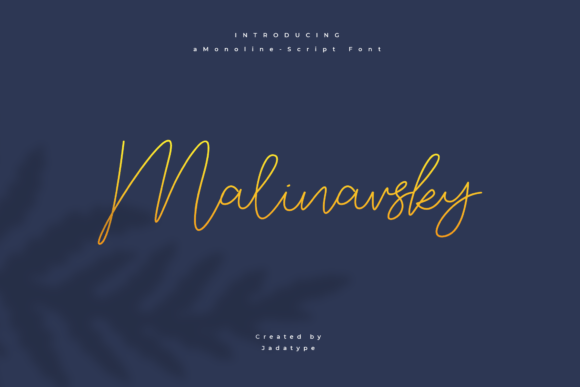
Immerse yourself in the world of Malinavsky Font, a captivating script font that will add an elegant touch to your creative projects. Its monoline lines dance across the page, evoking a sense of smoothness and simplicity, yet exuding an aura of sophistication.
With Malinavsky Font, your wedding invitations will radiate a timeless charm, leaving a lasting impression on your guests. Its delicate strokes will effortlessly elevate your diaries, transforming them into cherished keepsakes that tell your story with grace. Let your creativity flourish as you incorporate Malinavsky Font into your craft projects, adding a touch of uniqueness that sets your creations apart.
This versatile font is not limited to traditional applications. Unleash its potential for invitation cards and various other projects, allowing your words to shine with a captivating allure. Malinavsky Font supports standard English, multilingual, and ligature letters, ensuring seamless integration into your projects.
Embrace the artistry of Malinavsky Font and watch your creative visions come to life. Engage your audience with captivating designs that resonate with elegance and charm. Let Malinavsky Font be your creative companion, guiding you towards a world of visual storytelling that leaves an indelible mark.